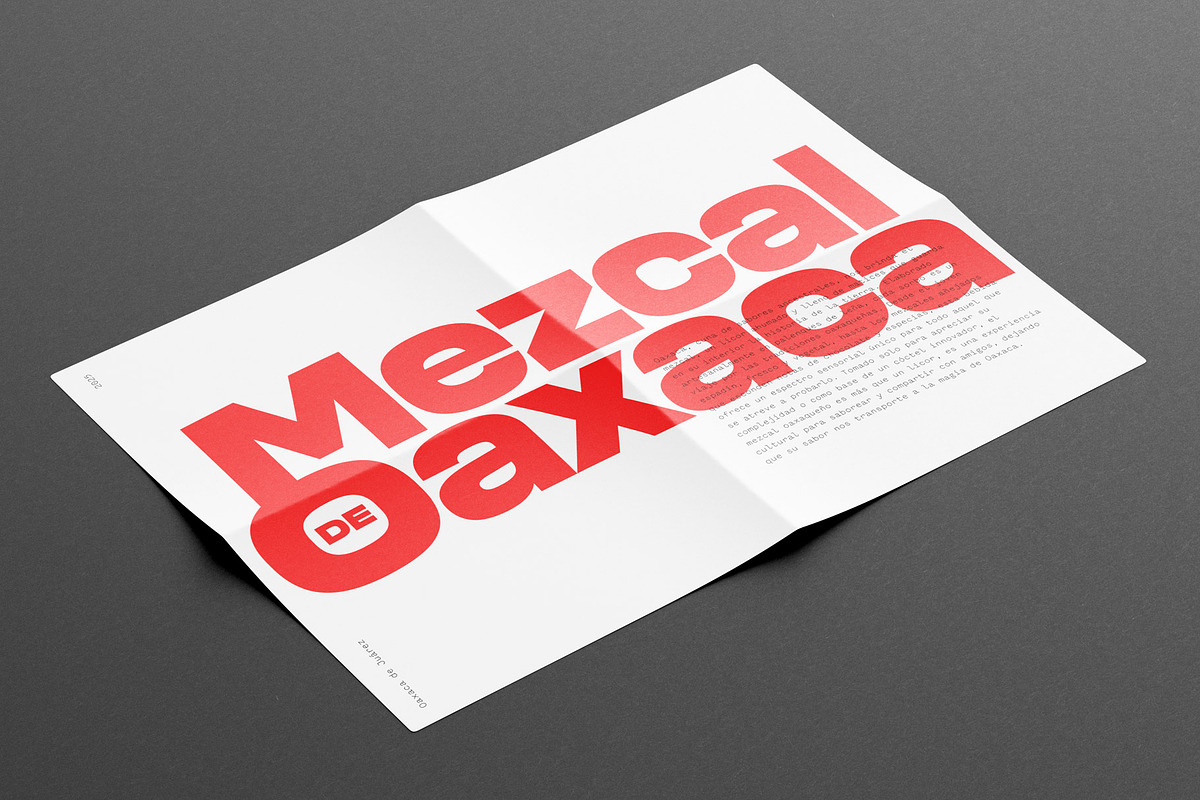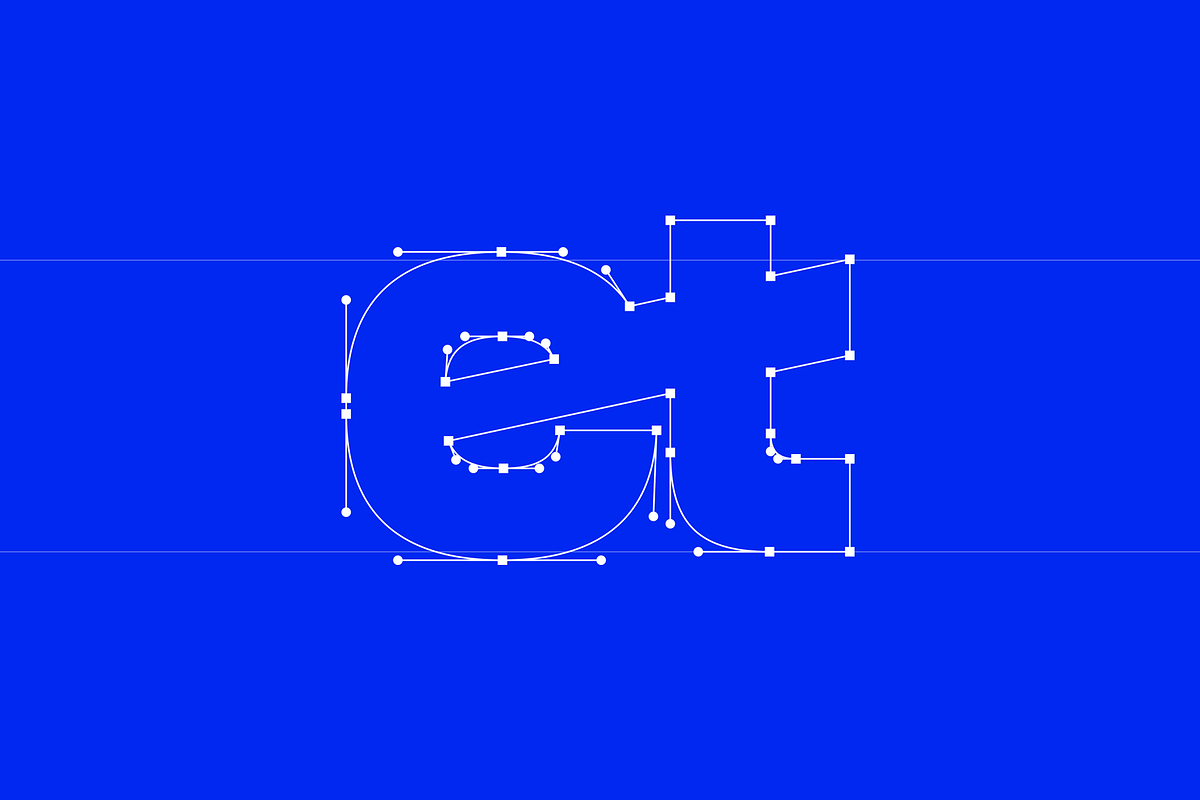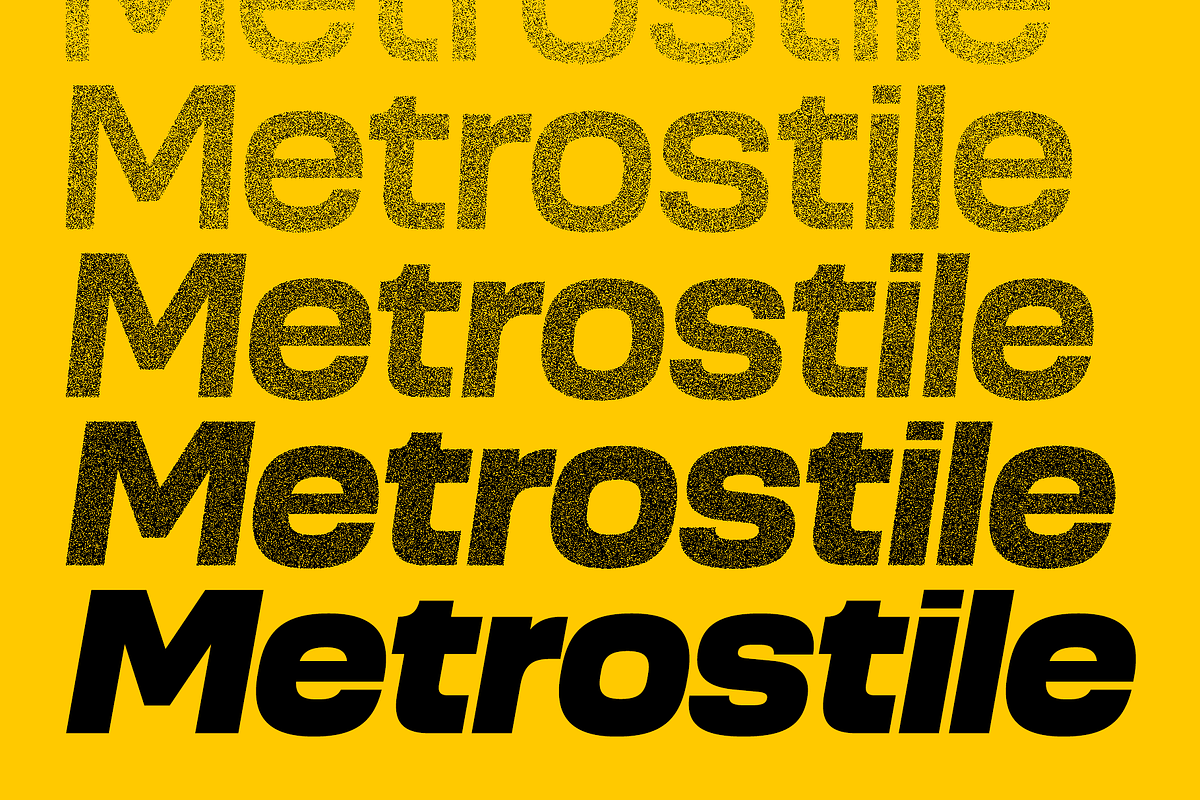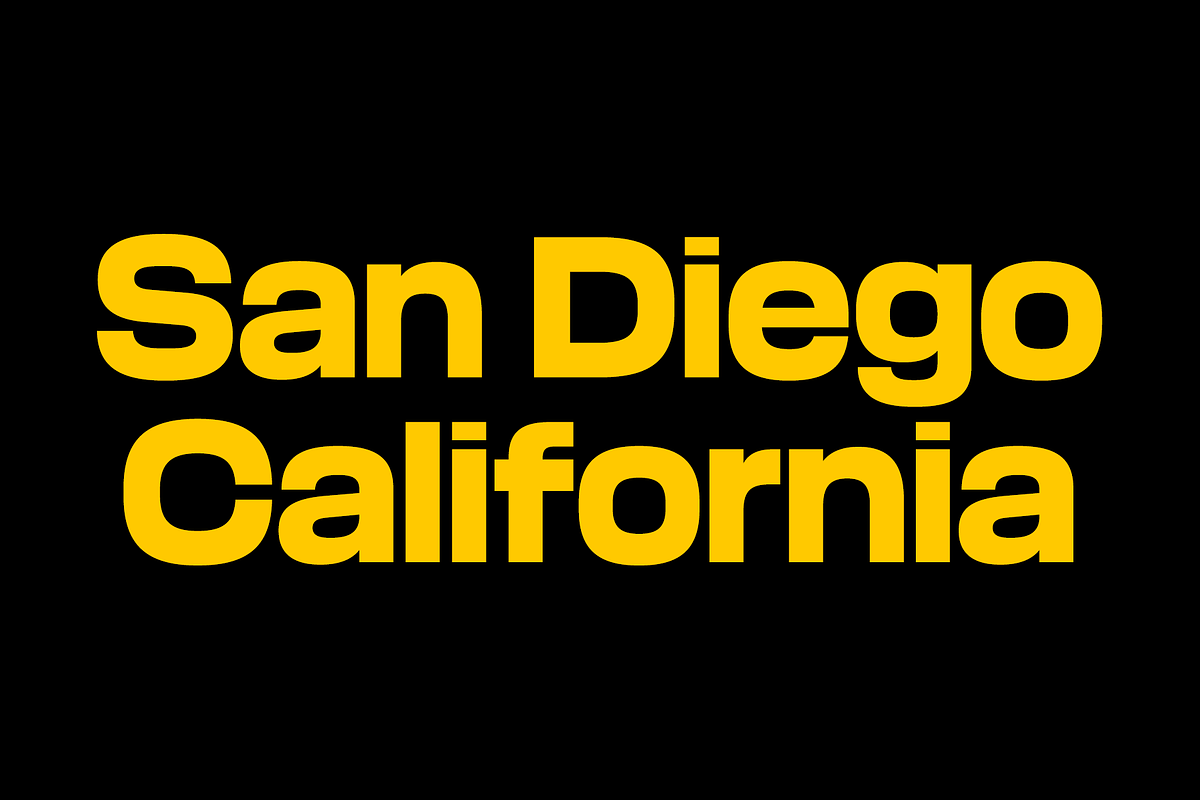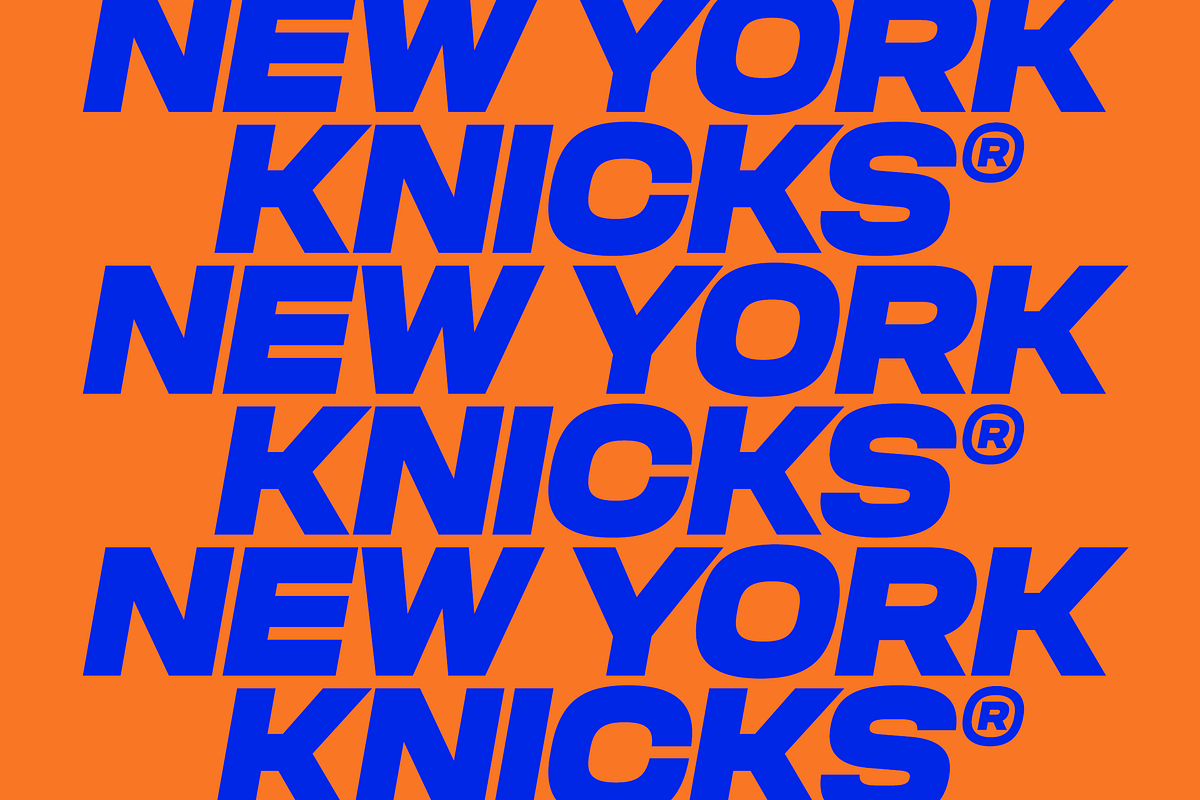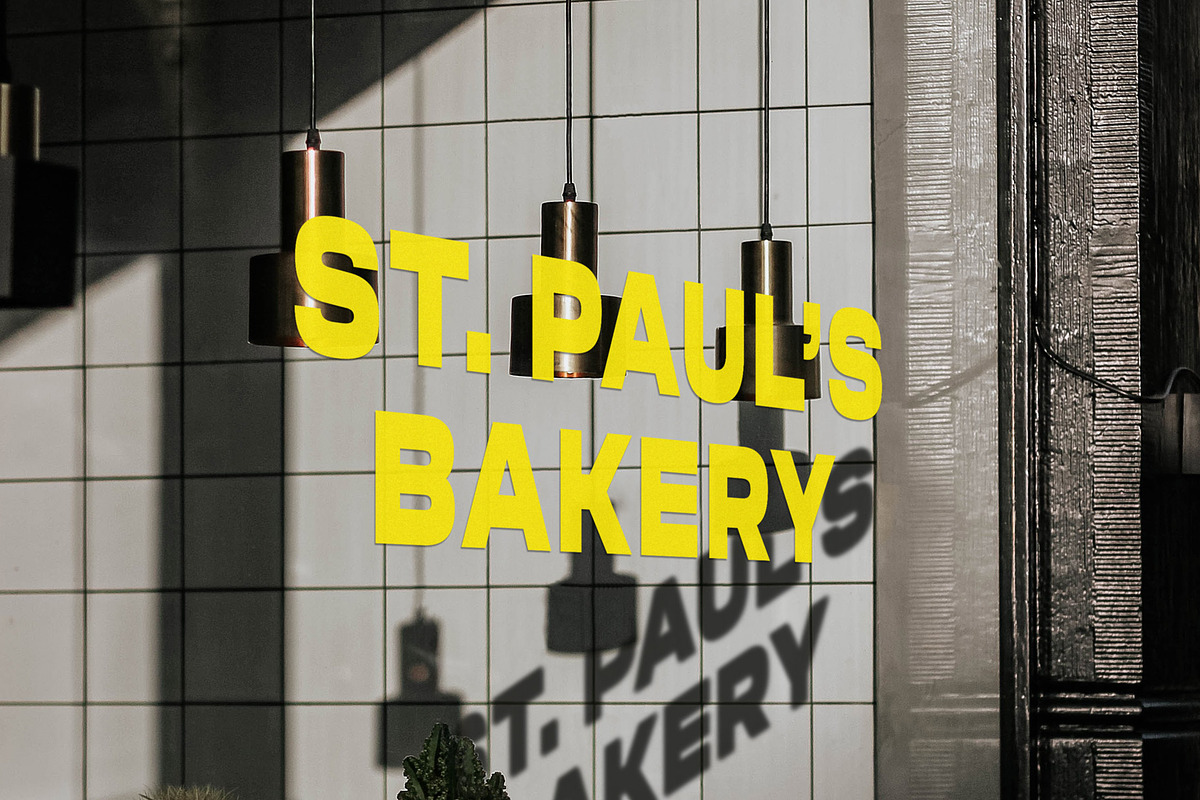
Metrostile
Metrostile is a bold and strong typeface which draws inspiration from iconic 60s and 70s geometric typefaces such as Eurostile by Aldo Novarese. It channels that era’s confident, technical aesthetic, but with a contemporary polish. Metrostile is perfect for branding, editorial, and digital design.